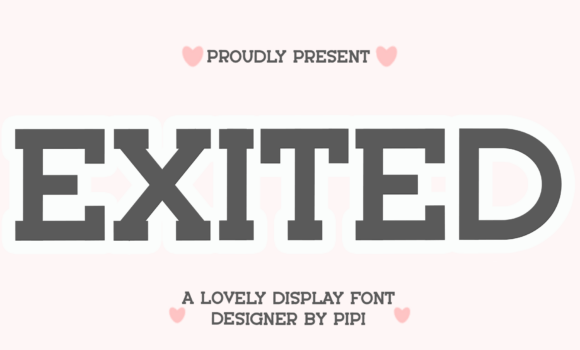
exited
Exited Font – Free Download Introduction to Exited Font Exited is a festive and merry typeface that captures the spirit of the holiday season. 📸 Preview Gallery 6 images 📌 Product Name Exited Font 👤 Author PiPi Creative 📂 Category